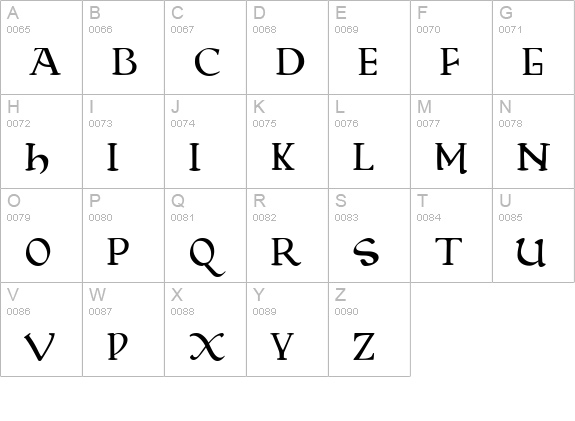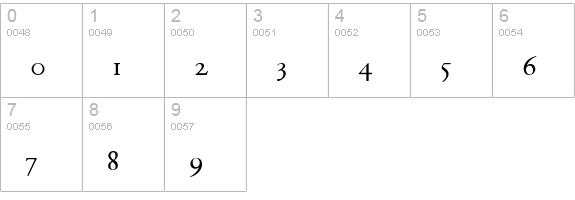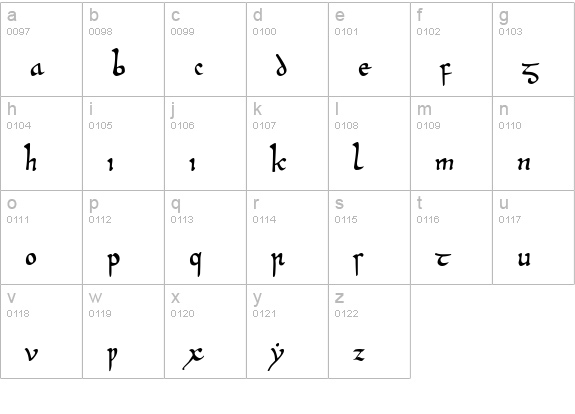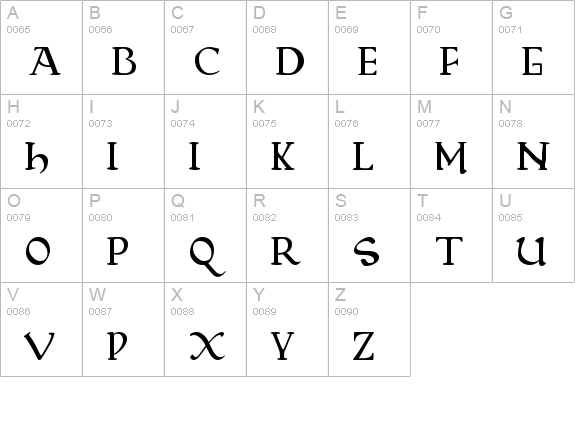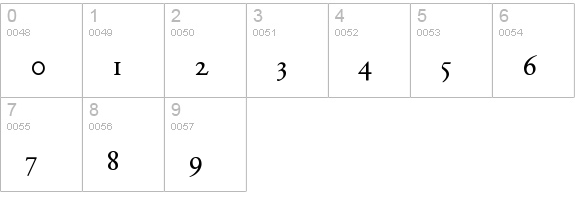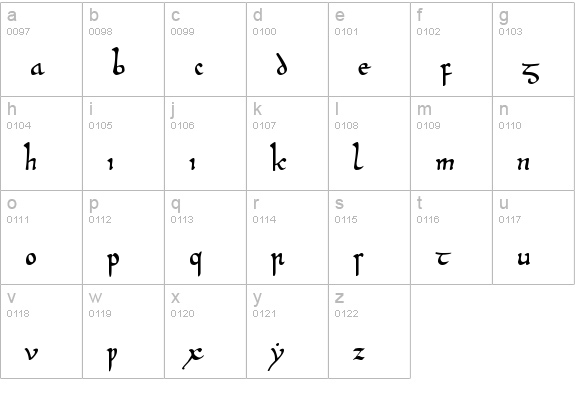
Beowulf1 font is a stunning display typeface that exudes elegance and sophistication. With its intricate details and classic design, Beowulf1 is perfect for adding a touch of timeless charm to your projects. The font features strong, bold letterforms that command attention and make a statement. Its versatility allows it to be used in a variety of design projects, from logos to posters to branding materials. What sets Beowulf1 font apart is that it is available for free download at FontsMarket.com. This means you can easily access this high-quality font without any cost, making it an excellent choice for designers looking to elevate their work without breaking the bank. Don't miss out on the opportunity to enhance your designs with the beauty and sophistication of Beowulf1 font.